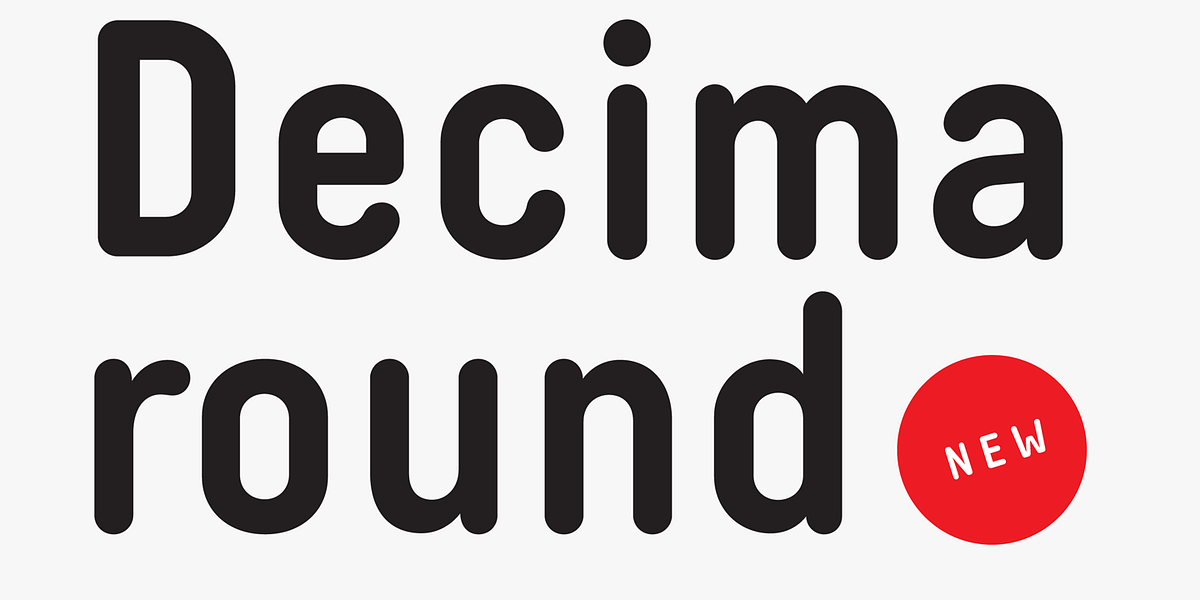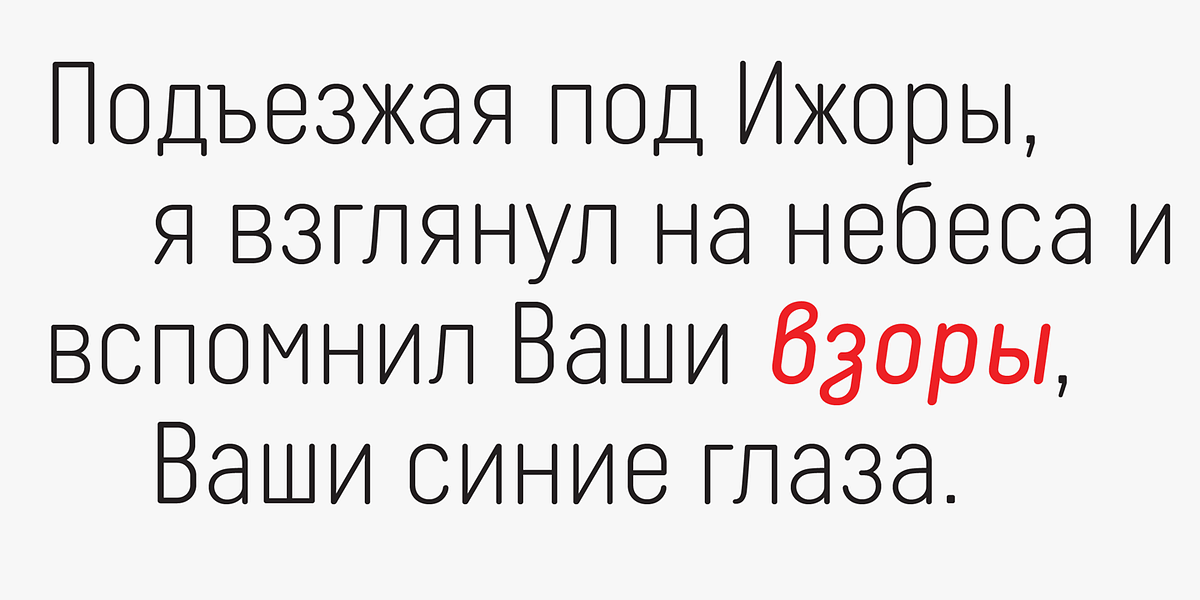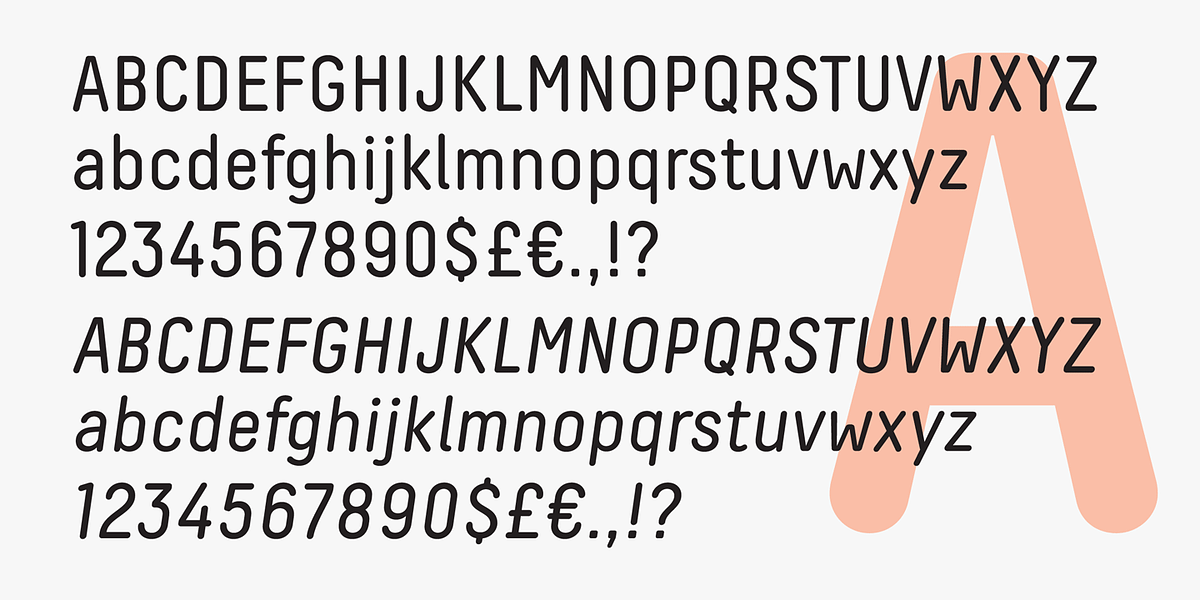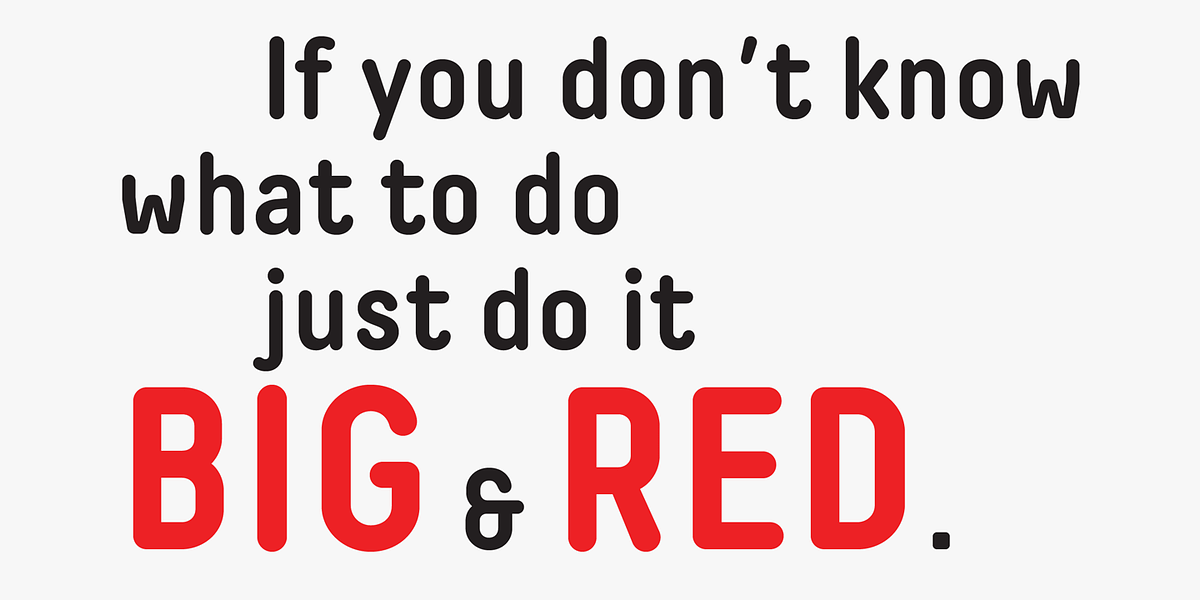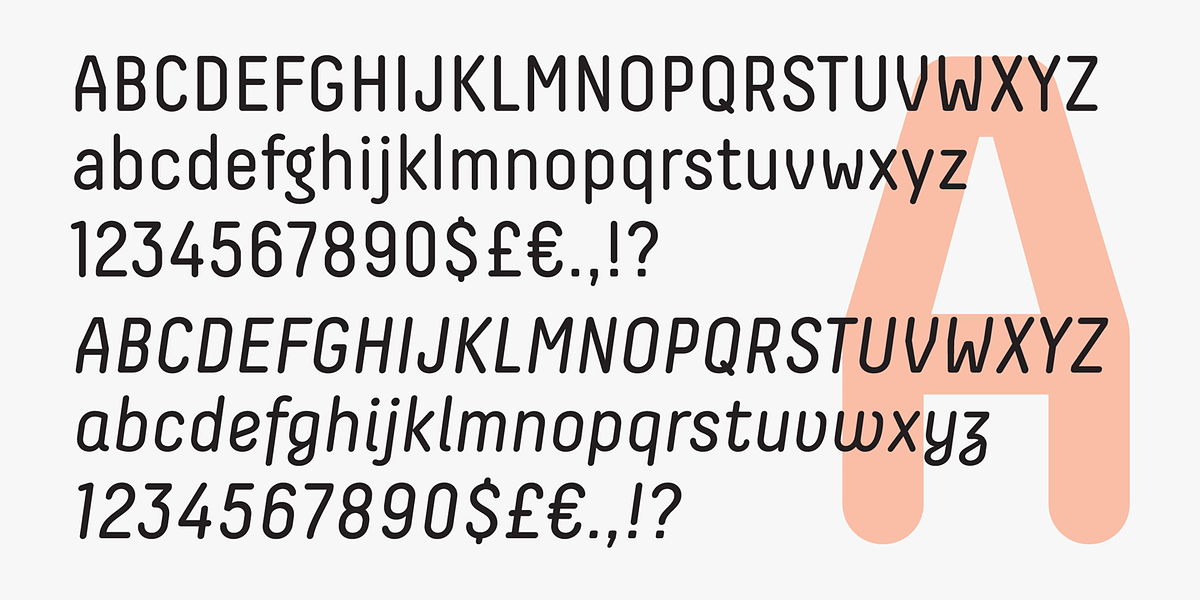
Decima Round
Decima Round is a rounded sans-serif font designed for readability and a friendly aesthetic. It's well-suited for branding and user interface design due to its approachable look and feel.